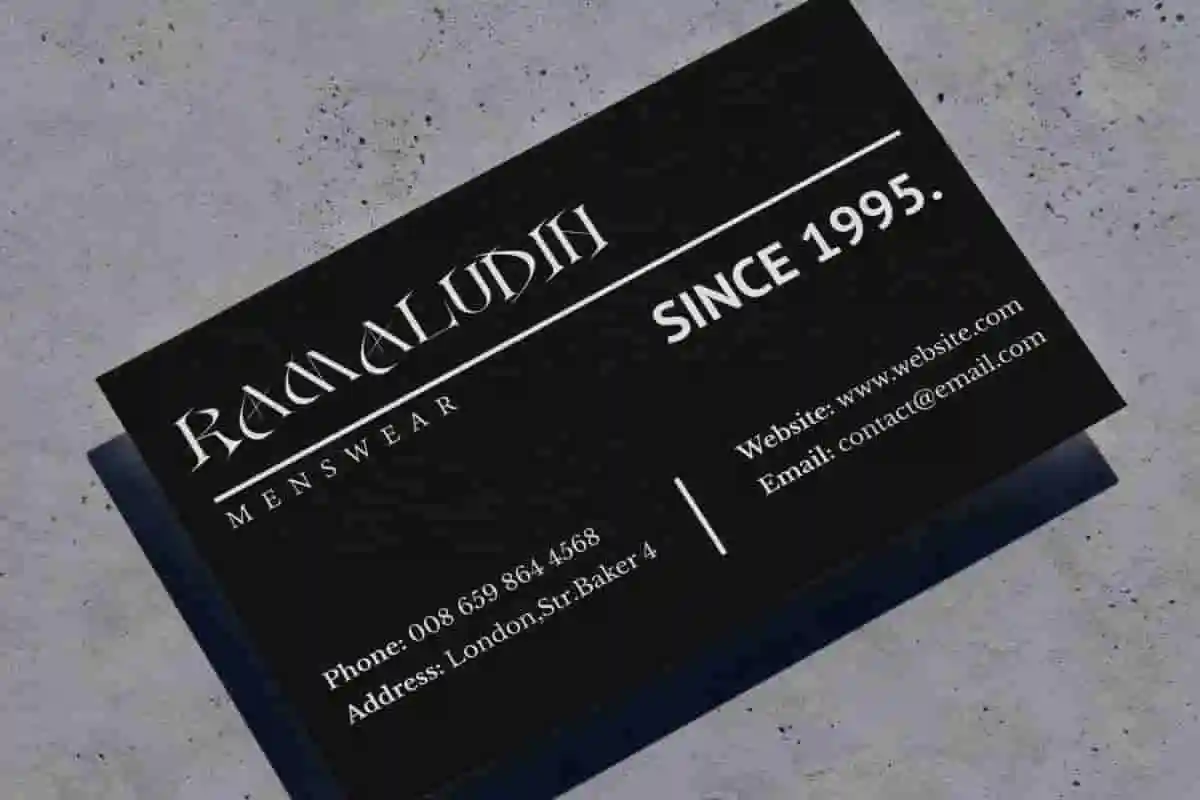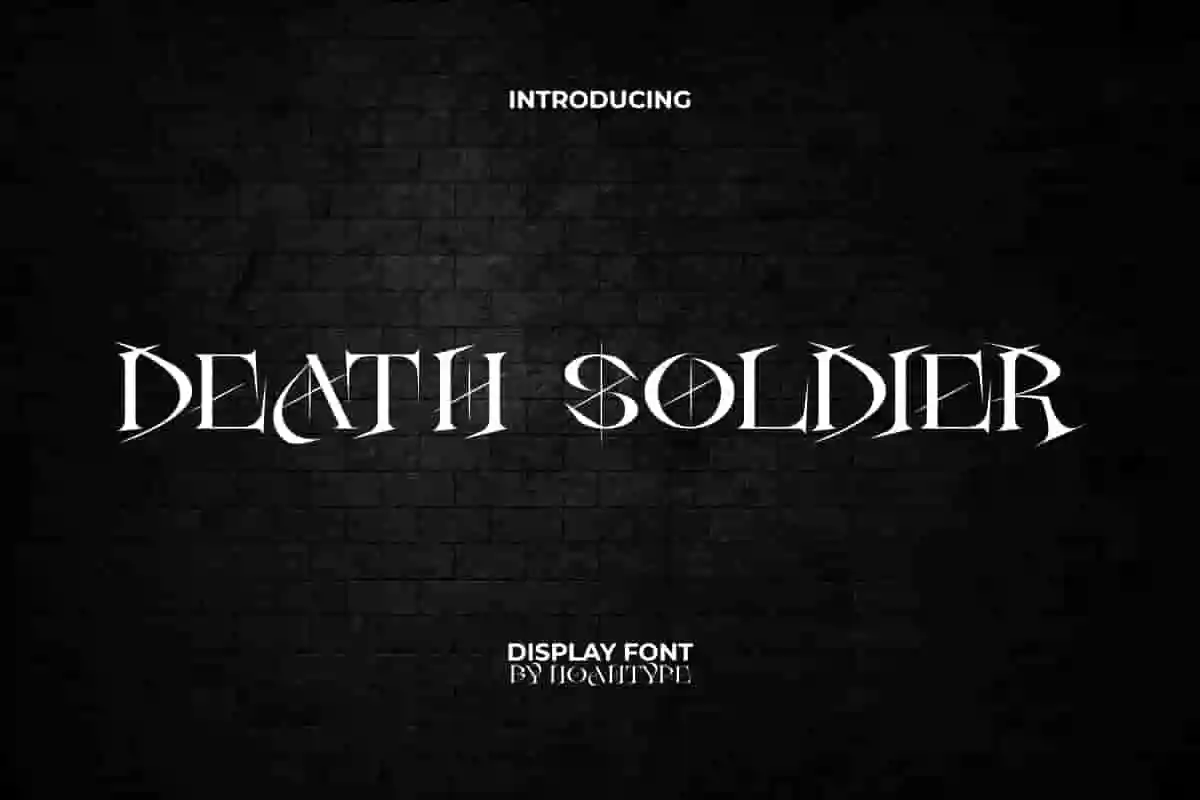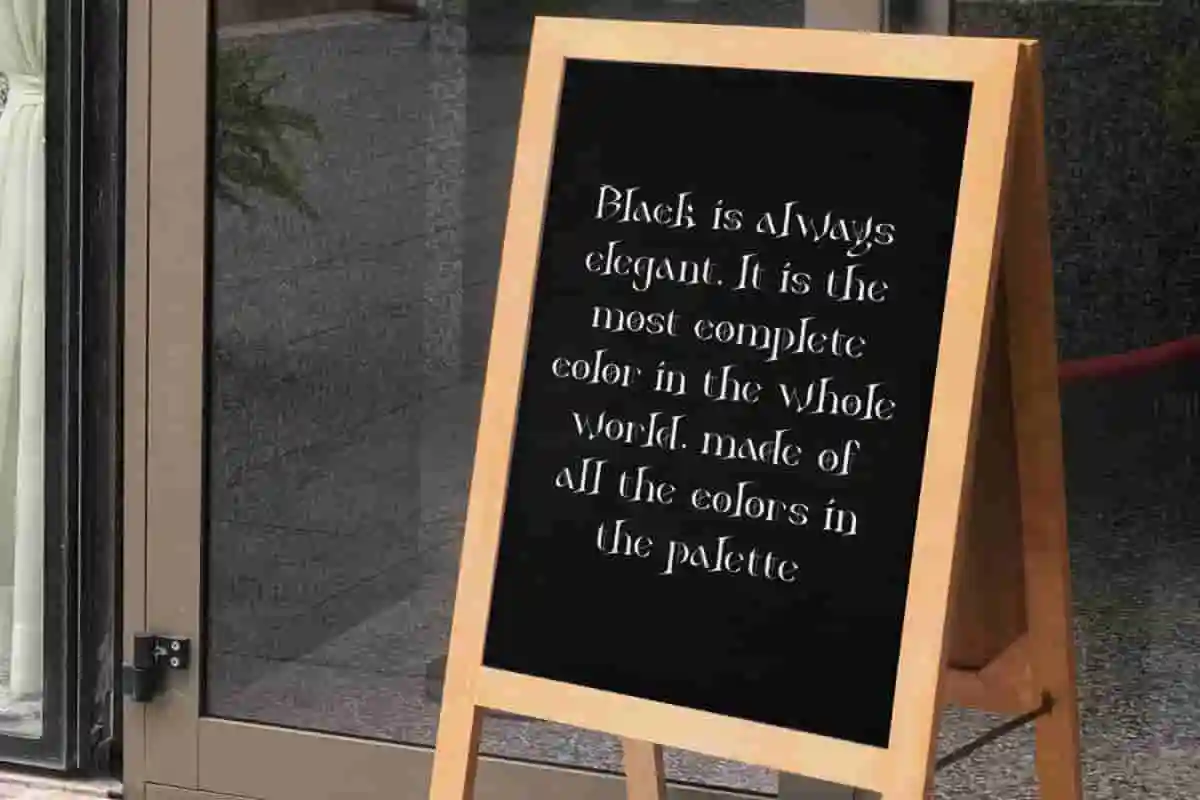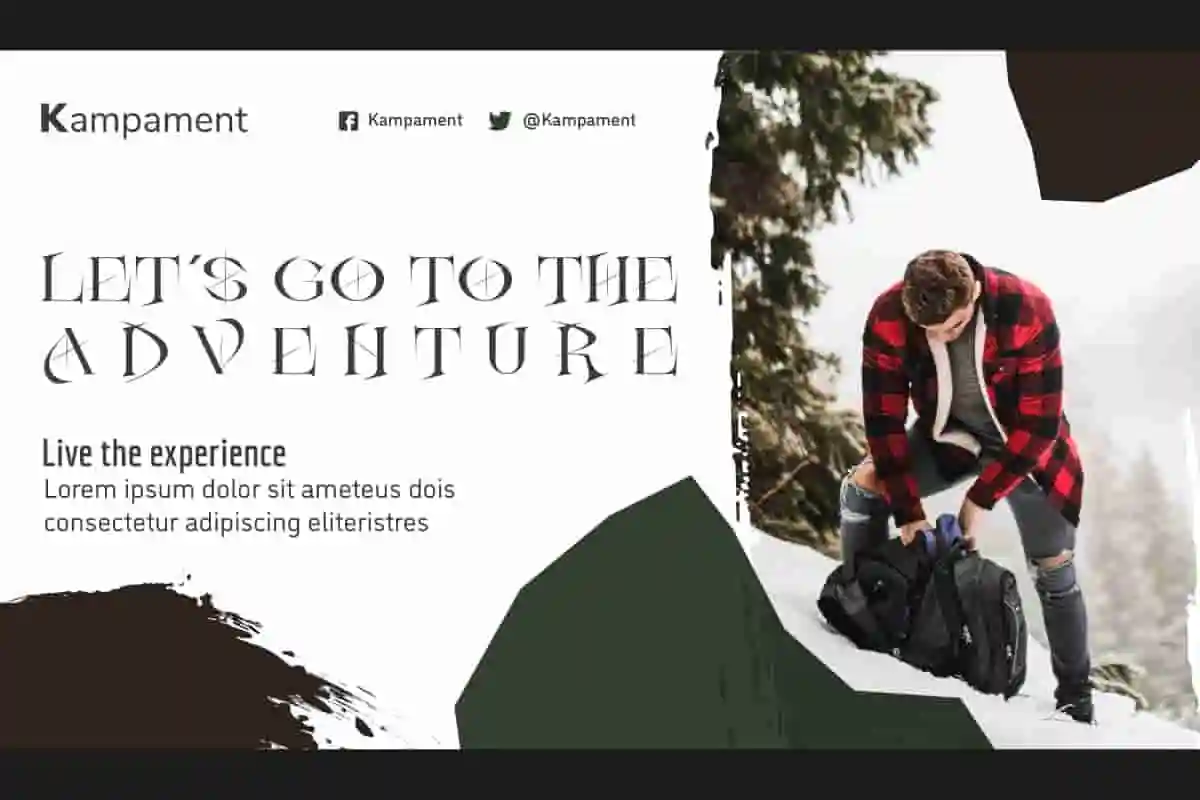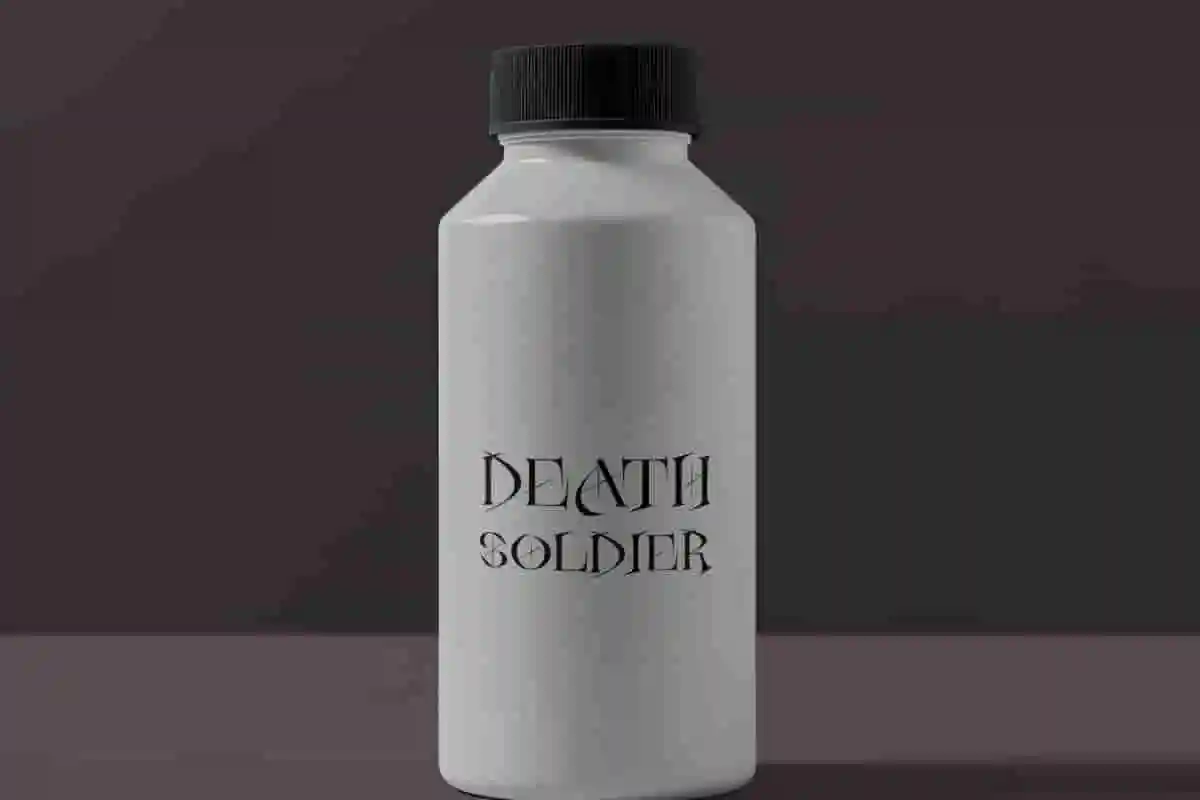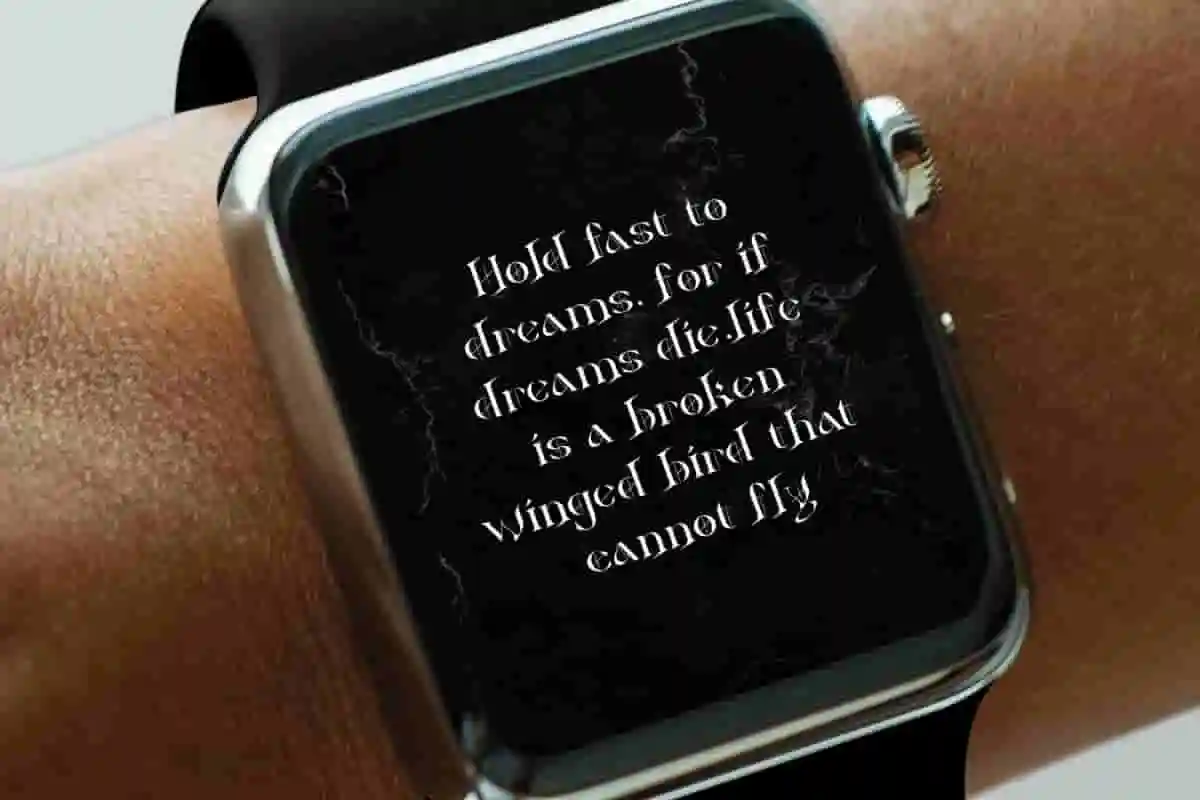
Death Soldier Font is a dark serif display font by NoahType. This font has lines that are not too thick and sharp, and also a scary impression that can be displayed in the design. It will be good for any designs, such as poster, website, stationery, brand image, invitation, custom design, label, marketing material, menu, product packaging, quotes, signage, and many more!
Death Soldier Font includes a complete set of Uppercase and Lowercase Basic Characters, Numerals, Punctuation and Symbol. This awesome font will give strong look and also a perfect choice for many industries, such as fashion, beauty product, event or festival, accessories, advertising, movie, photography, printing, publishing, spa and salon, travel, etc.